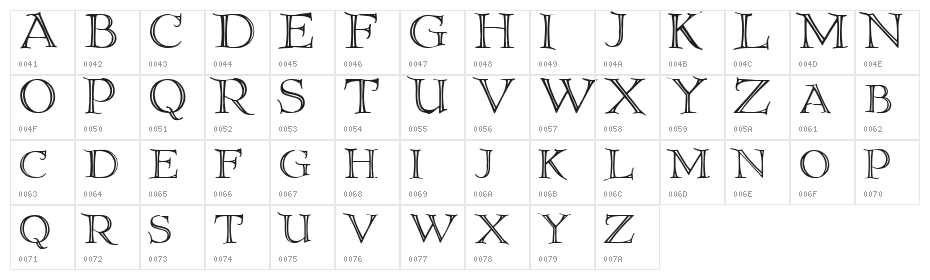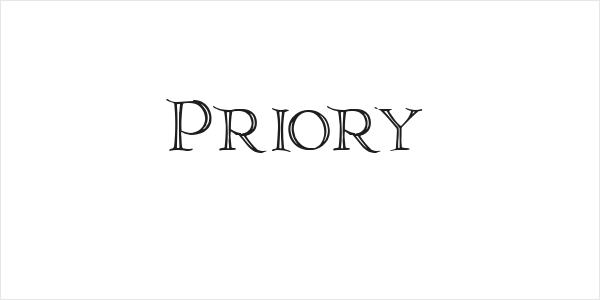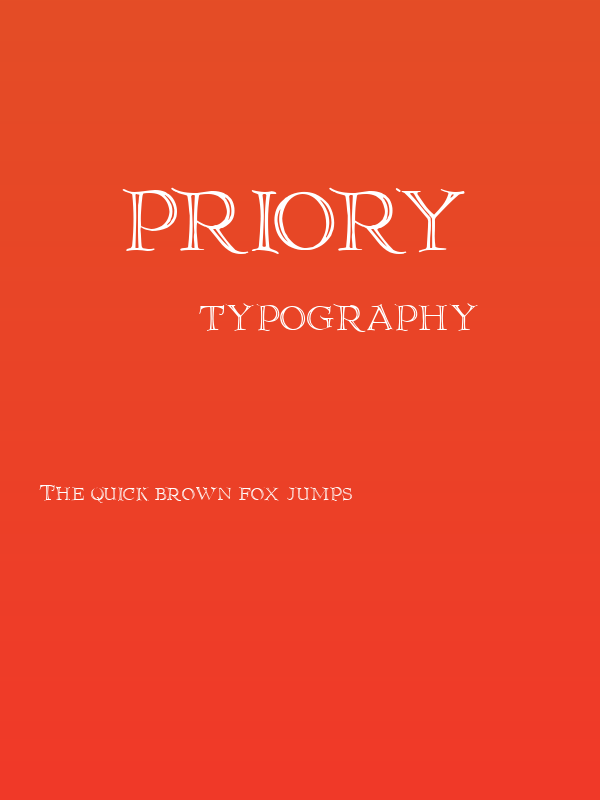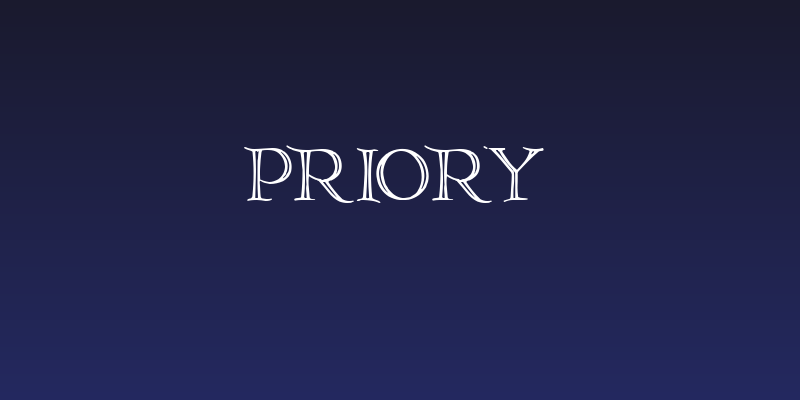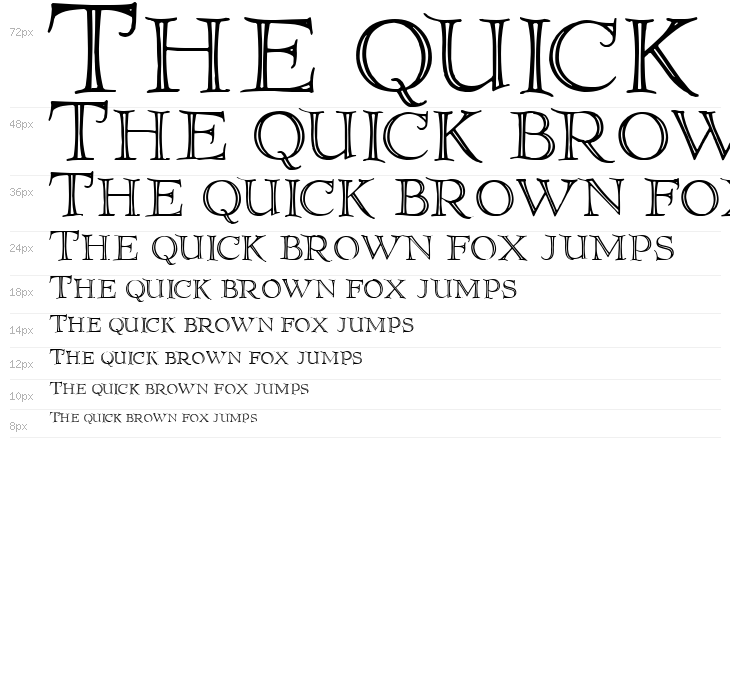
Priory Font
Priory Description
This font features a classic serif style with elegant and refined strokes. The characters exhibit a balanced proportion, with slightly elongated ascenders and descenders that add a touch of sophistication. The serifs are pronounced yet not overly exaggerated, providing a traditional feel while maintaining readability. The font's structure is consistent, with a medium contrast between thick and thin strokes, enhancing its legibility. It is suitable for formal and professional settings, offering a timeless appeal that works well in both print and digital formats.
Overall StyleClassic
Use CaseHeadlines, Body text
Proposed ProjectsIdeal for book covers, formal invitations, editorial layouts, and corporate branding.